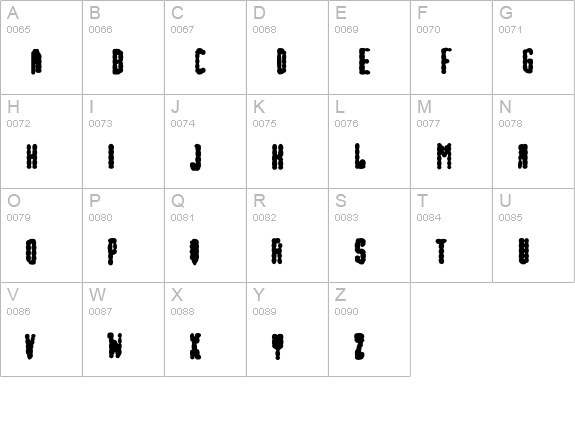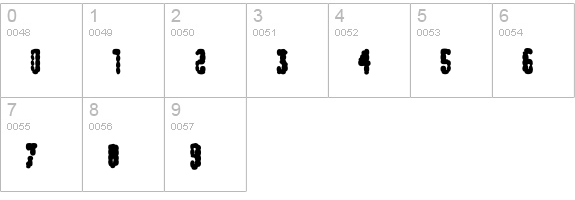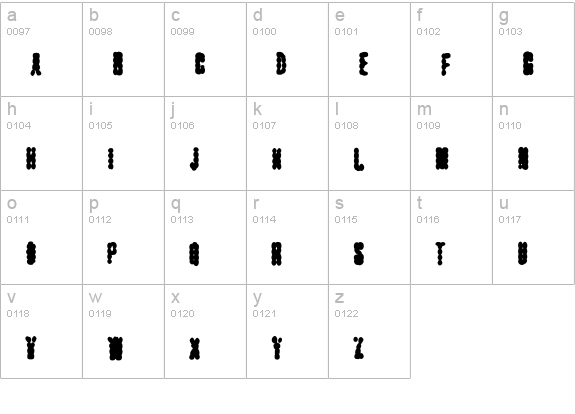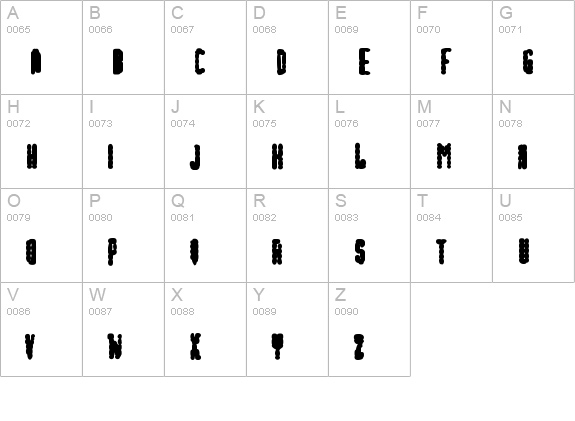
Atlanta-ExtraBold Font Details
Atlanta-ExtraBold is an extra-heavy, attention-grabbing variant in the Atlanta typeface family \xE2\x80\x94 well suited to high-impact headlines, posters, and bold branding.
Introducing Atlanta-ExtraBold, a bold and powerful font that commands attention with its strong and confident presence. This versatile typeface exudes modernity and sophistication, making it an ideal choice for headlines, titles, and branding projects. The thick, heavy strokes of Atlanta-ExtraBold give off a sense of boldness and authority, making your message stand out and leave a lasting impression. What sets Atlanta-ExtraBold apart is not only its striking design but also the fact that it is available for free download at FontsMarket.com. This means that you can easily access and use this impressive font for all your creative endeavors without any cost. Whether you are working on a poster, logo, or website design, Atlanta-ExtraBold will elevate your project and make it visually impactful. Download Atlanta-ExtraBold today and unleash the power of this dynamic font to make a statement and captivate your audience. Let your creativity soar with this exceptional typeface that is both bold and free for you to use.